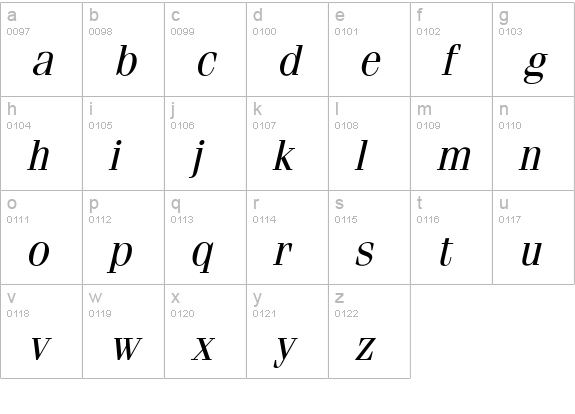
FeniceBookItalic Font Details
FeniceBookItalic font is a beautifully designed typeface that exudes elegance and sophistication. Its sleek and flowing italic style adds a touch of class to any project, making it perfect for use in branding, editorial design, and more. The graceful curves and fine details of FeniceBookItalic make it a versatile choice for a wide range of creative applications. What's even better is that FeniceBookItalic font is available for free download at FontsMarket.com. This means you can easily access this exquisite font and elevate your designs without any cost. Don't miss out on this opportunity to enhance your projects with the timeless beauty of FeniceBookItalic font. Download it now and start creating stunning visuals that are sure to make a lasting impression.